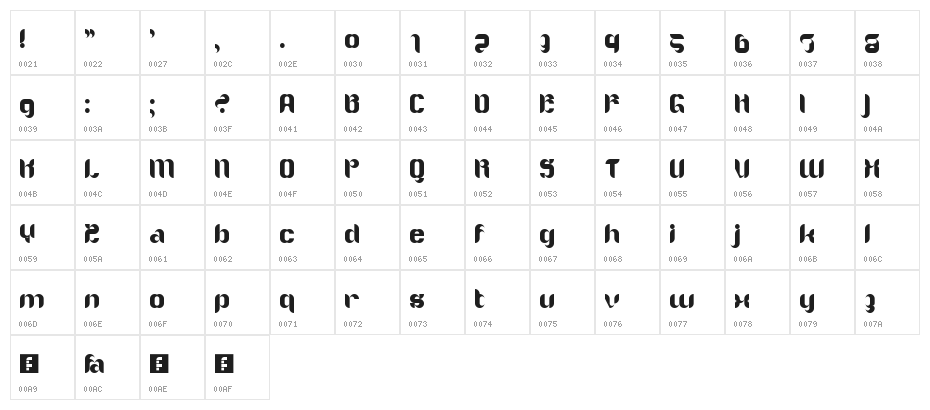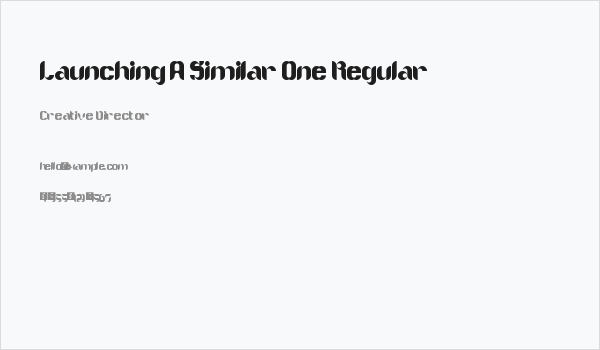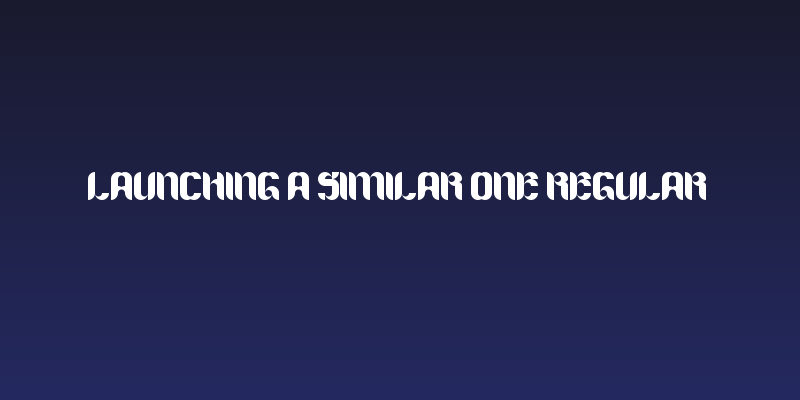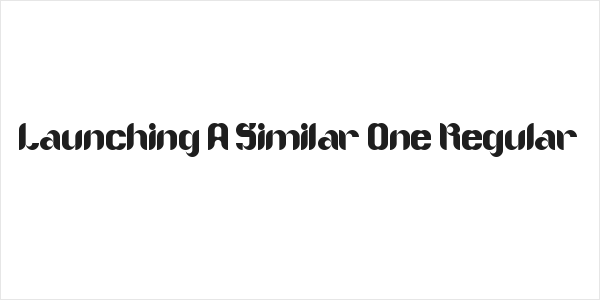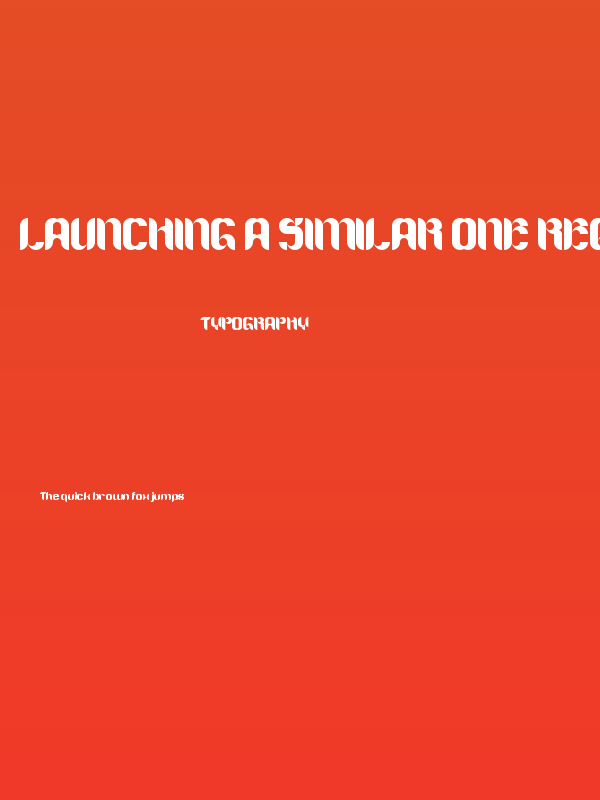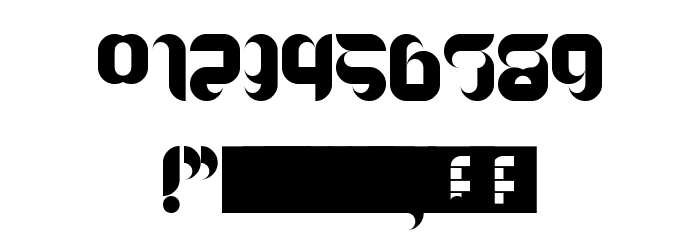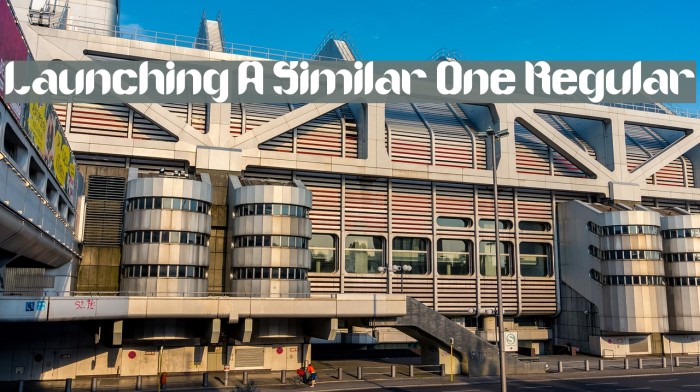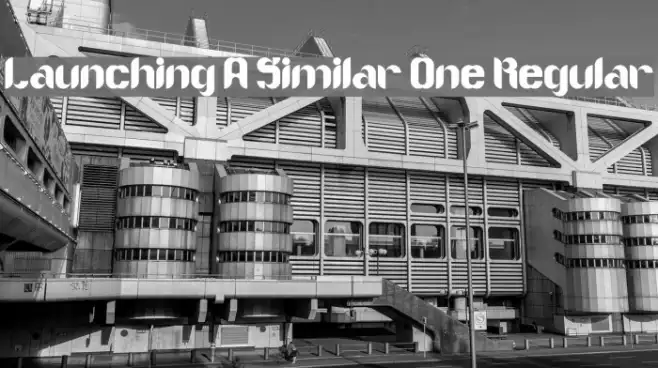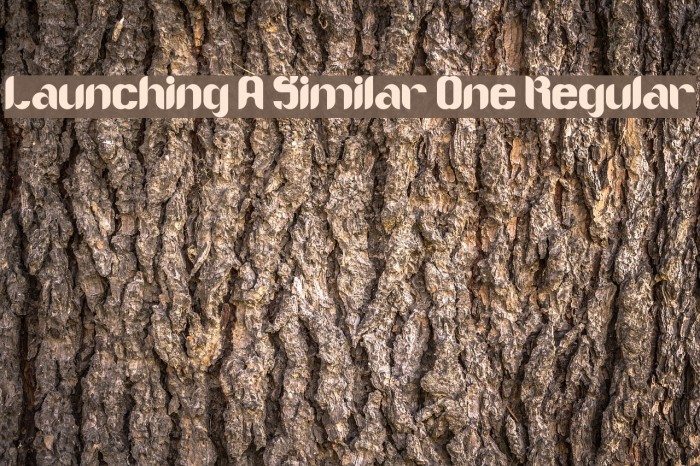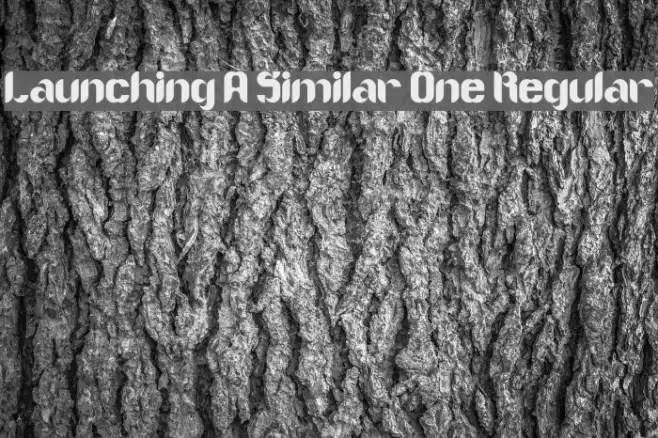
Launching A Similar One Regular Font
Launching A Similar One Regular Description
This font features a bold and modern design with a unique geometric style. The characters are constructed with thick strokes and rounded edges, creating a futuristic and dynamic appearance. The uppercase and lowercase letters maintain a consistent width, while the numerals and special characters follow the same design principles. The font's distinctiveness lies in its use of negative space and curved forms, making it stand out in any design project. Its bold presence is ideal for capturing attention and conveying a sense of innovation and creativity.